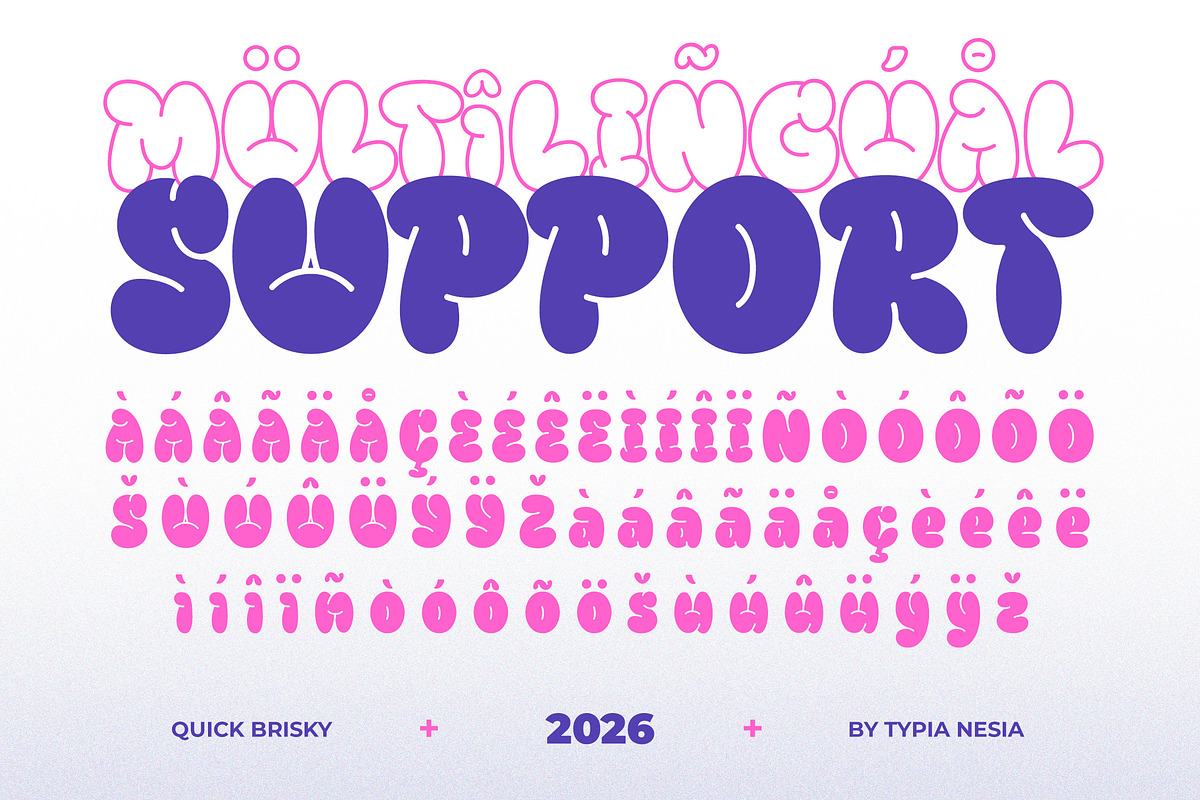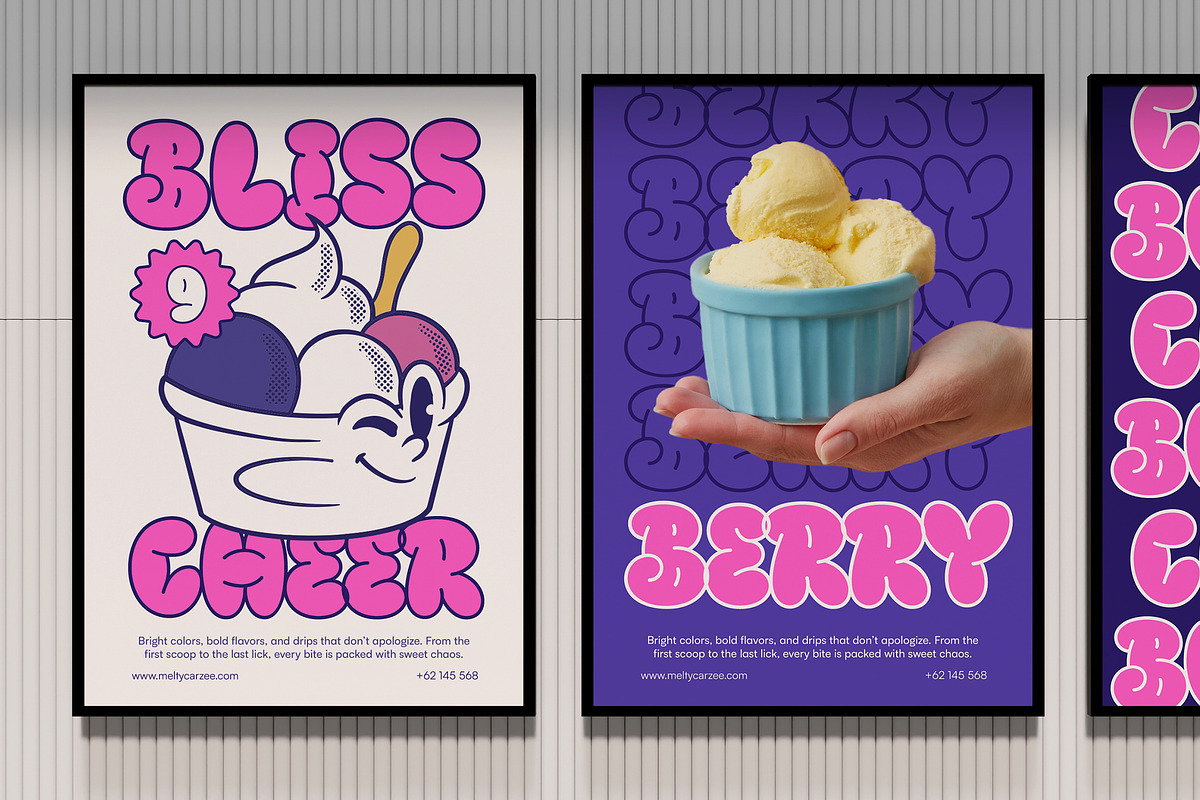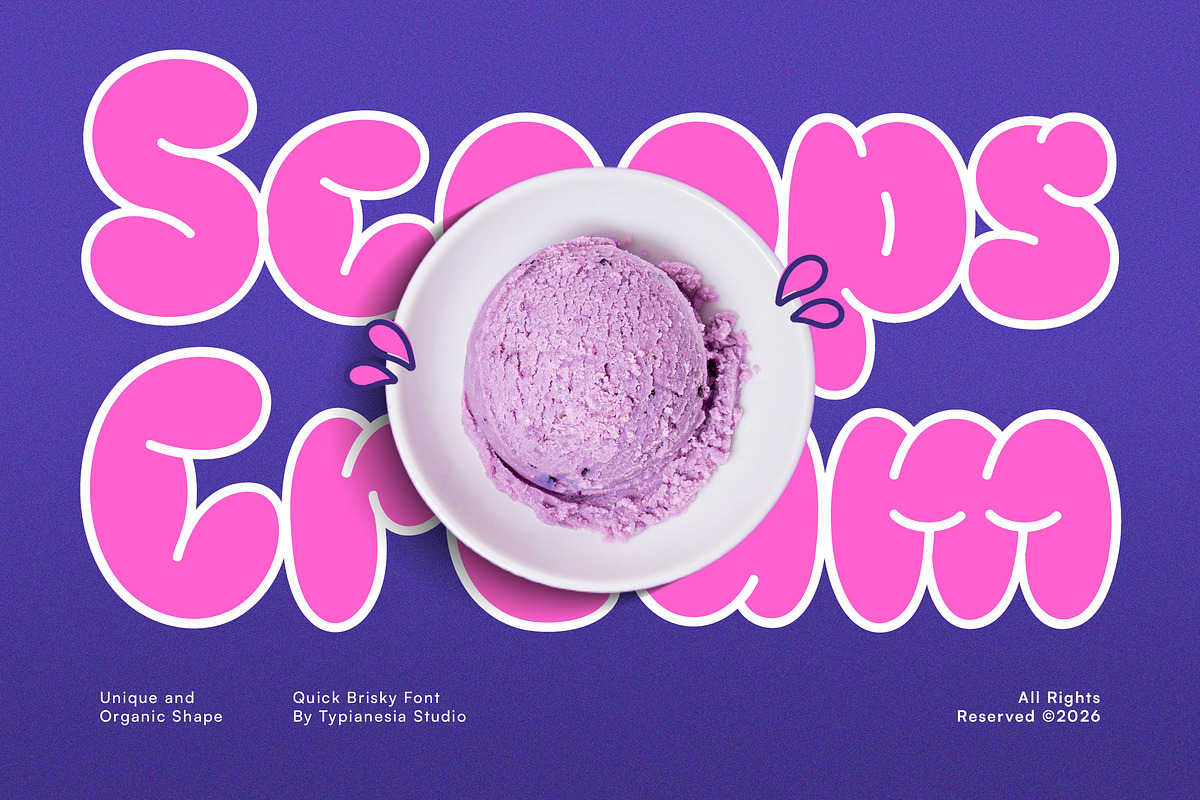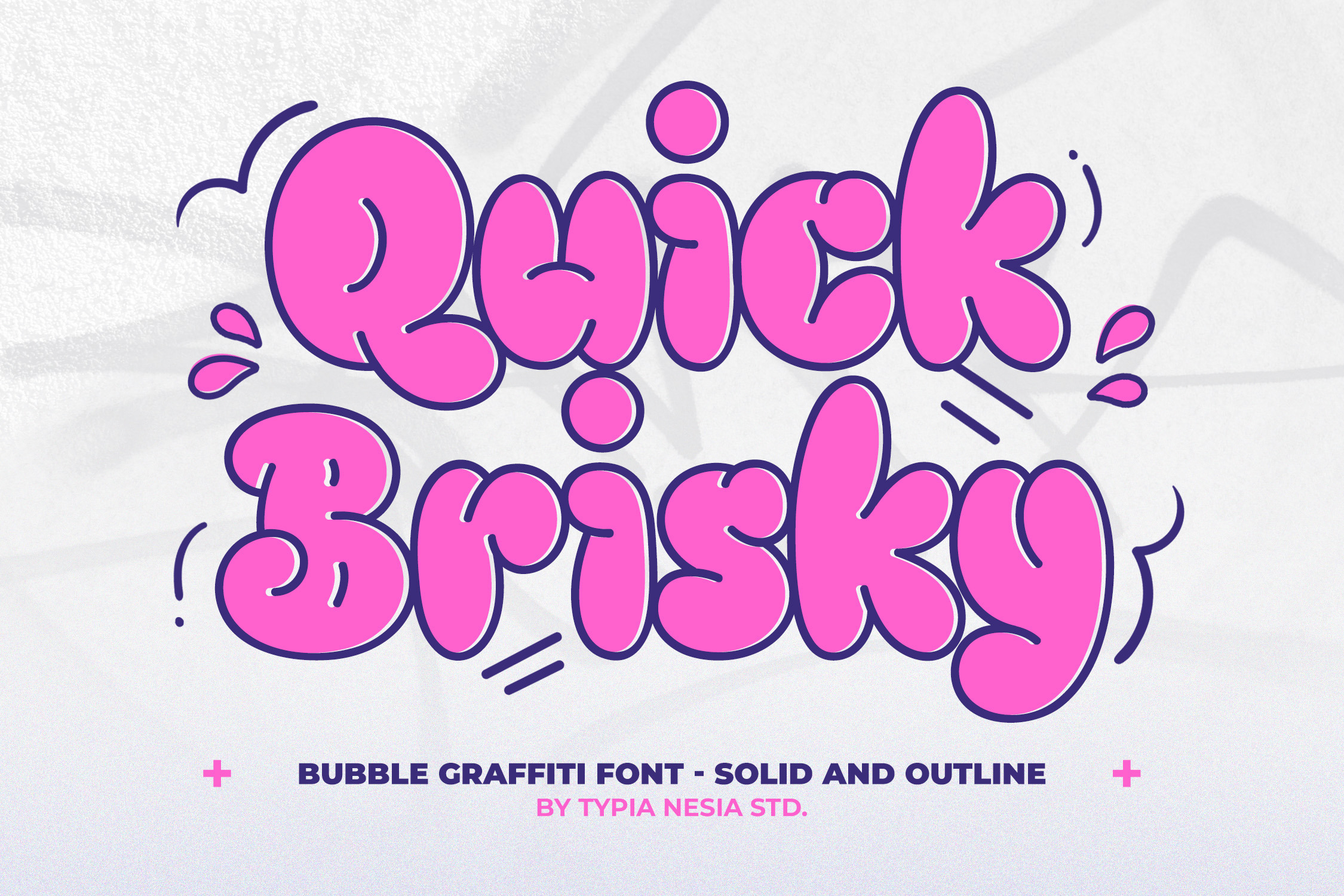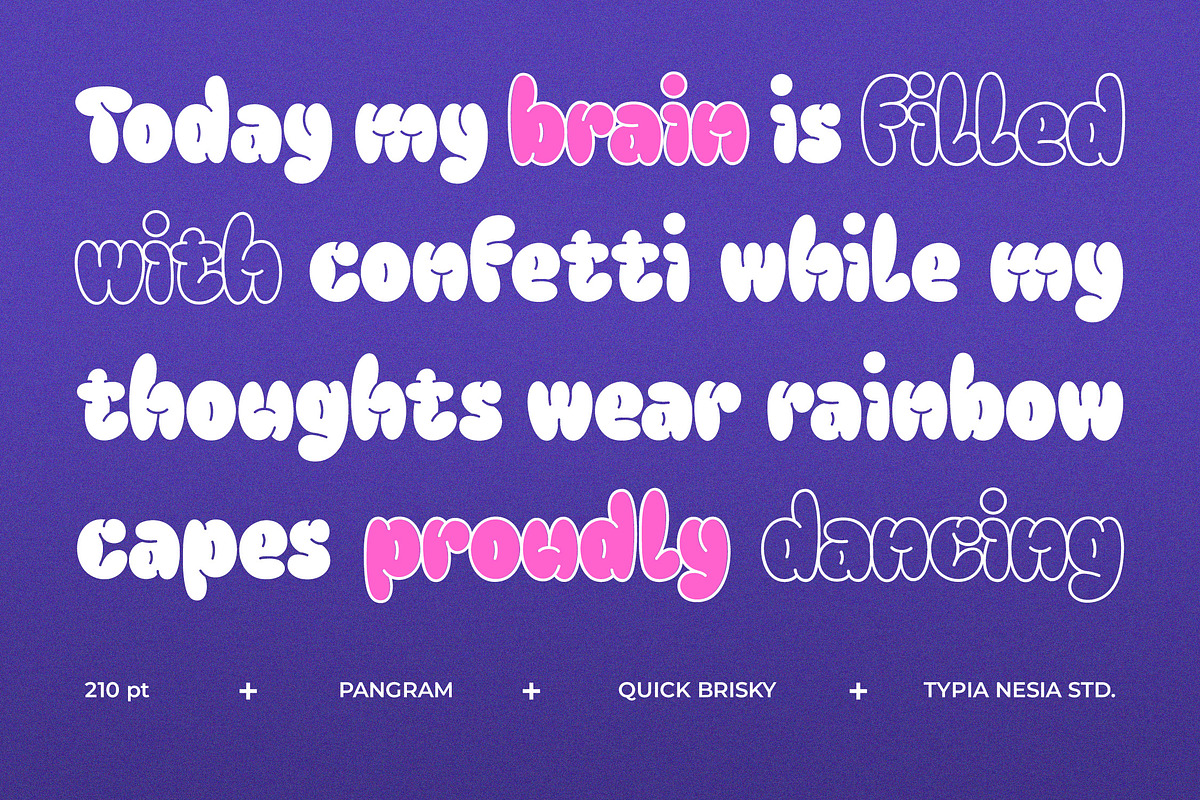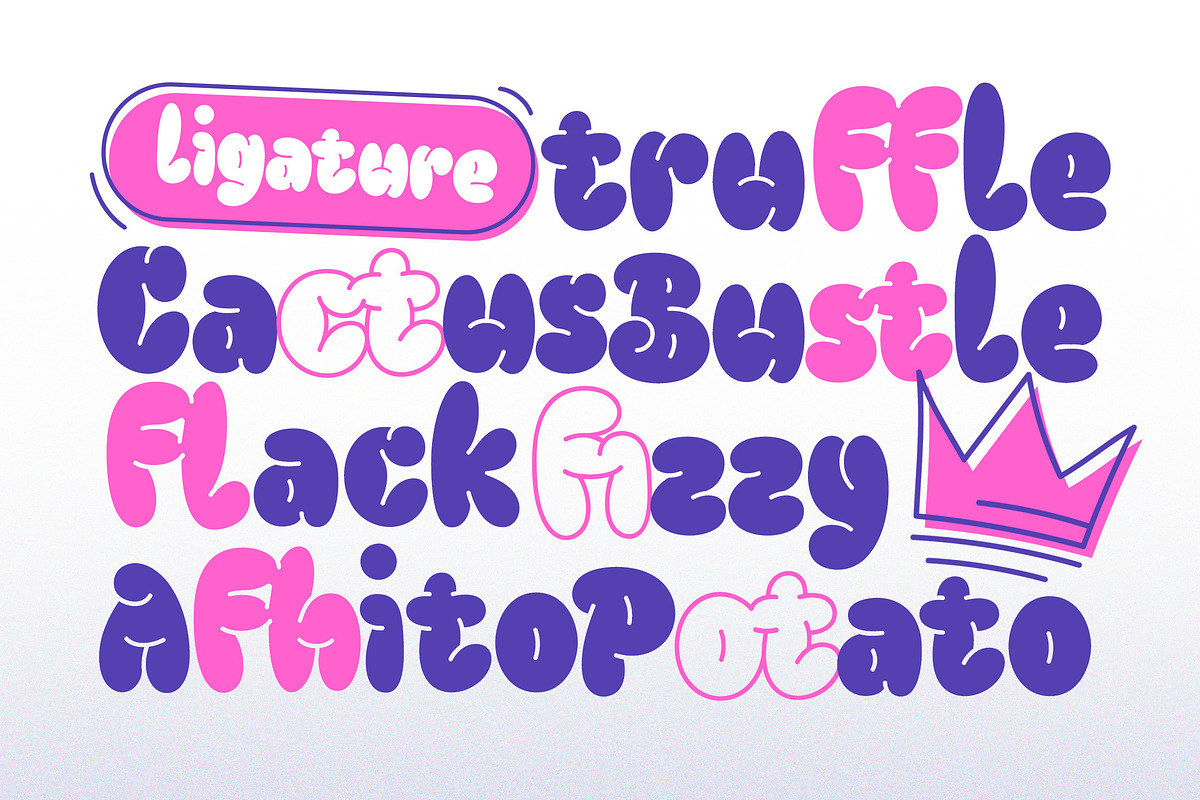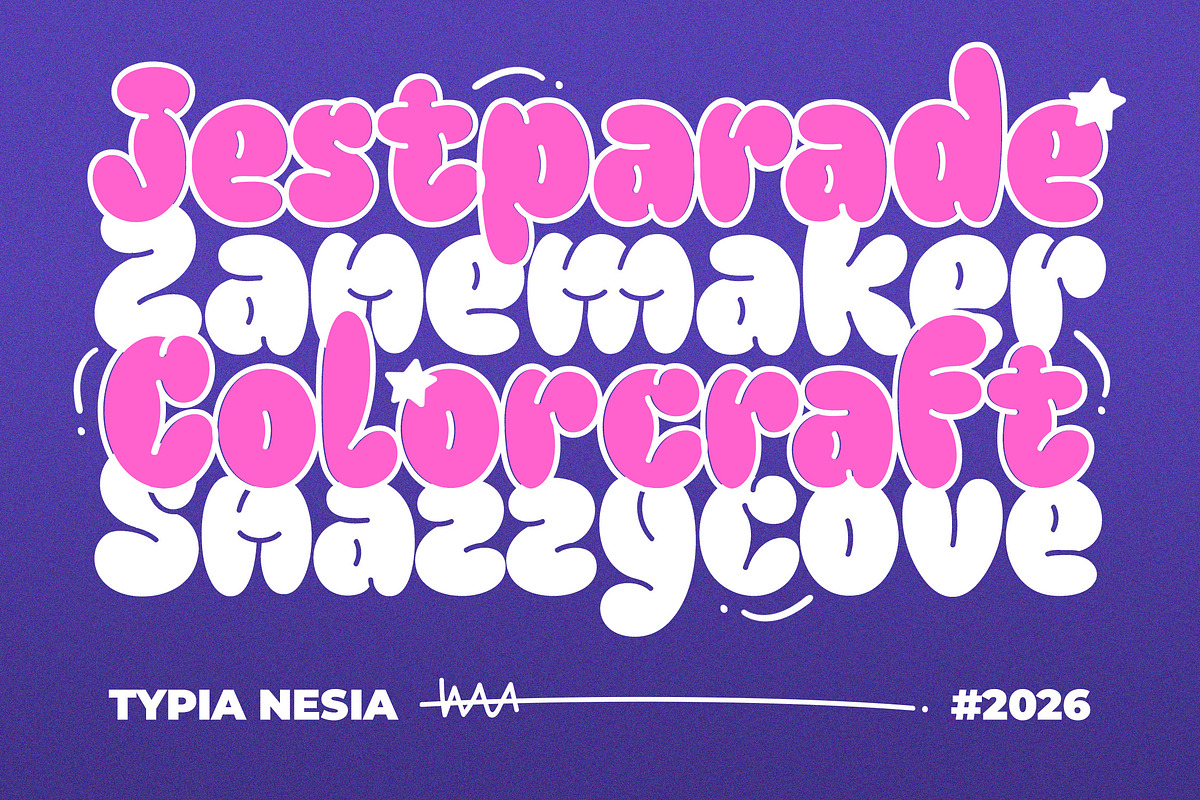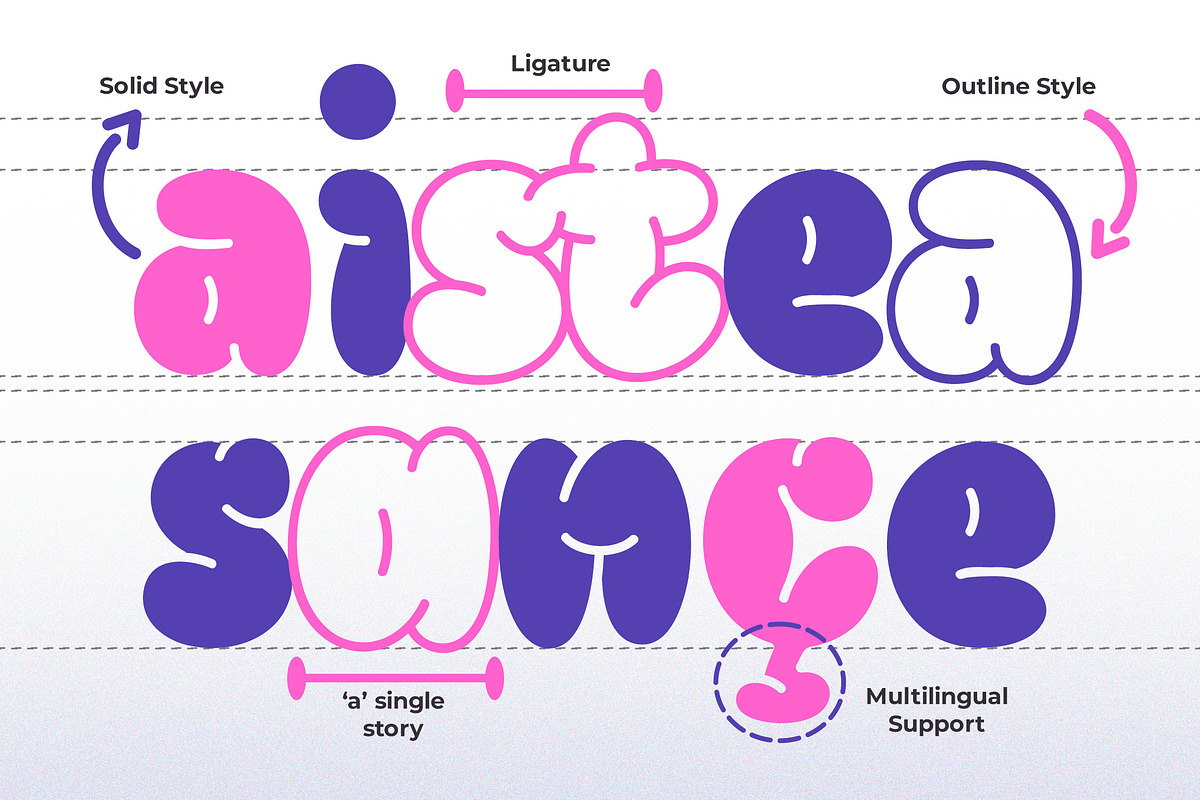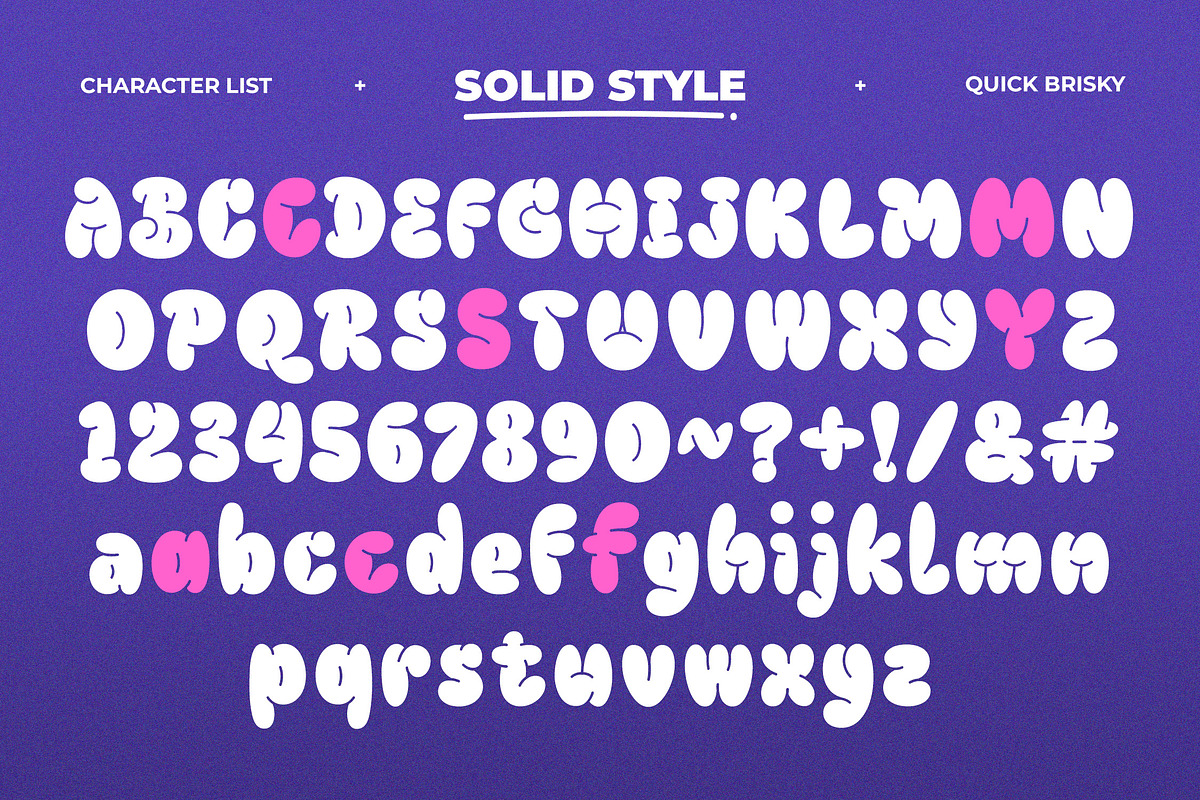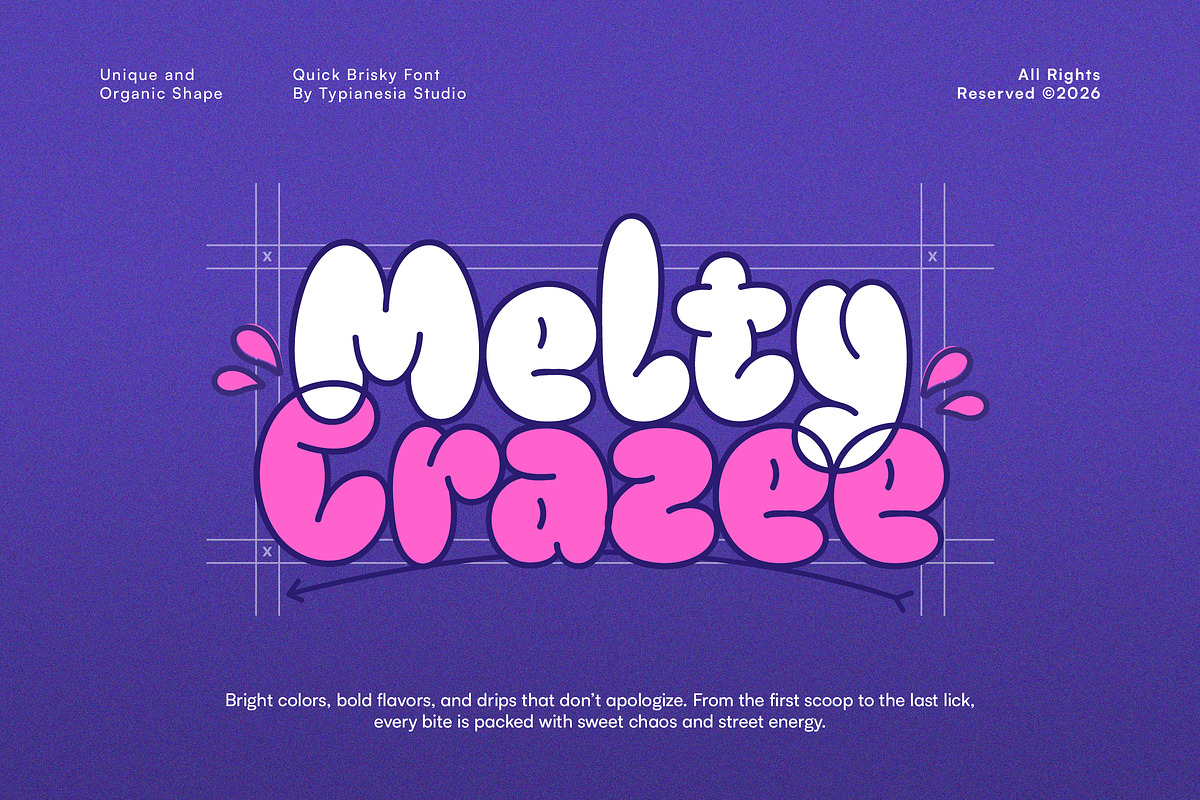
Quick Brisky - Bubble Graffiti Font
Quick Brisky - Bubble Balloon Graffiti Font - Cute & Playful Y2K Street Urban Typeface
Quick Brisky is a modern bubble graffiti font with a playful balloon style inspired by urban street art and Y2K design trends. Designed with bold rounded shapes and soft balloon-like letterforms, its chunky and expressive characters create a fun and eye-catching visual style. This font is perfect for logo design, music posters, urban branding, café menus, packaging, stickers, playful digital content, and any project that needs a cheerful, energetic, and youthful vibe. The bold bubble structure ensures strong readability while maintaining a lively and creative feel.
Bring fun street energy to your design with Quick Brisky.